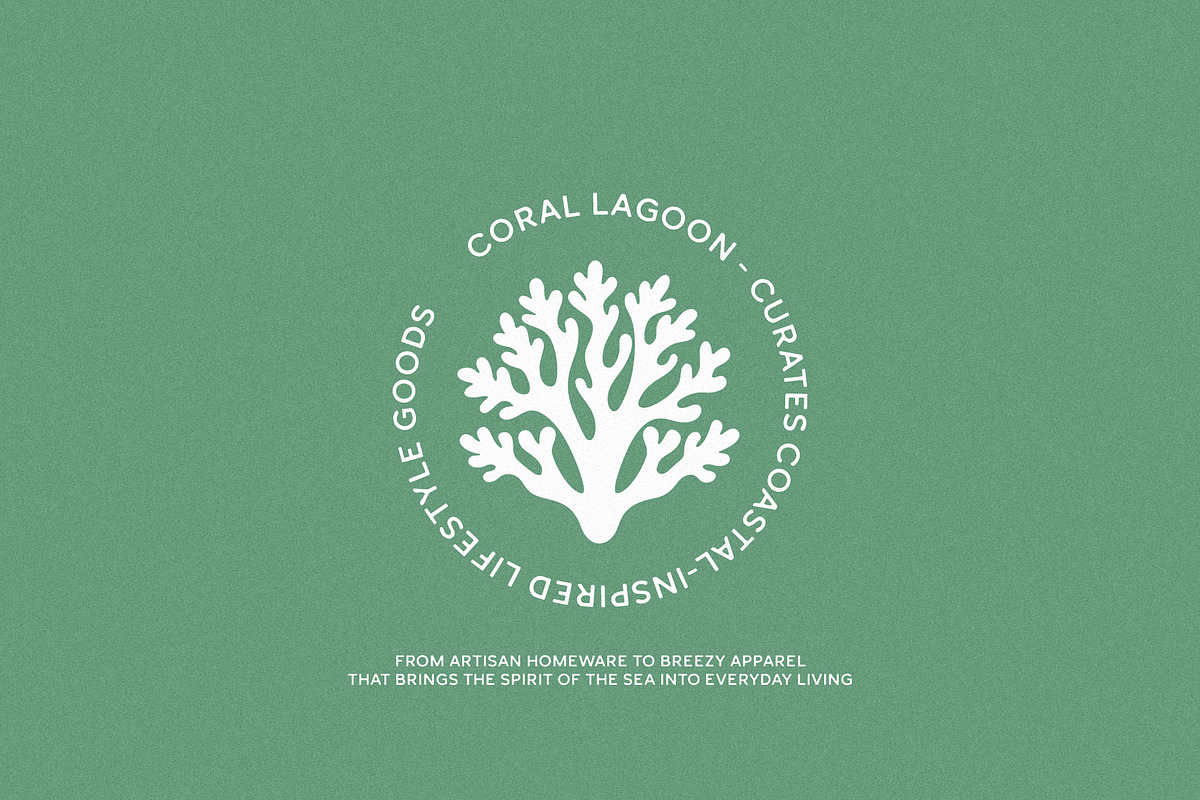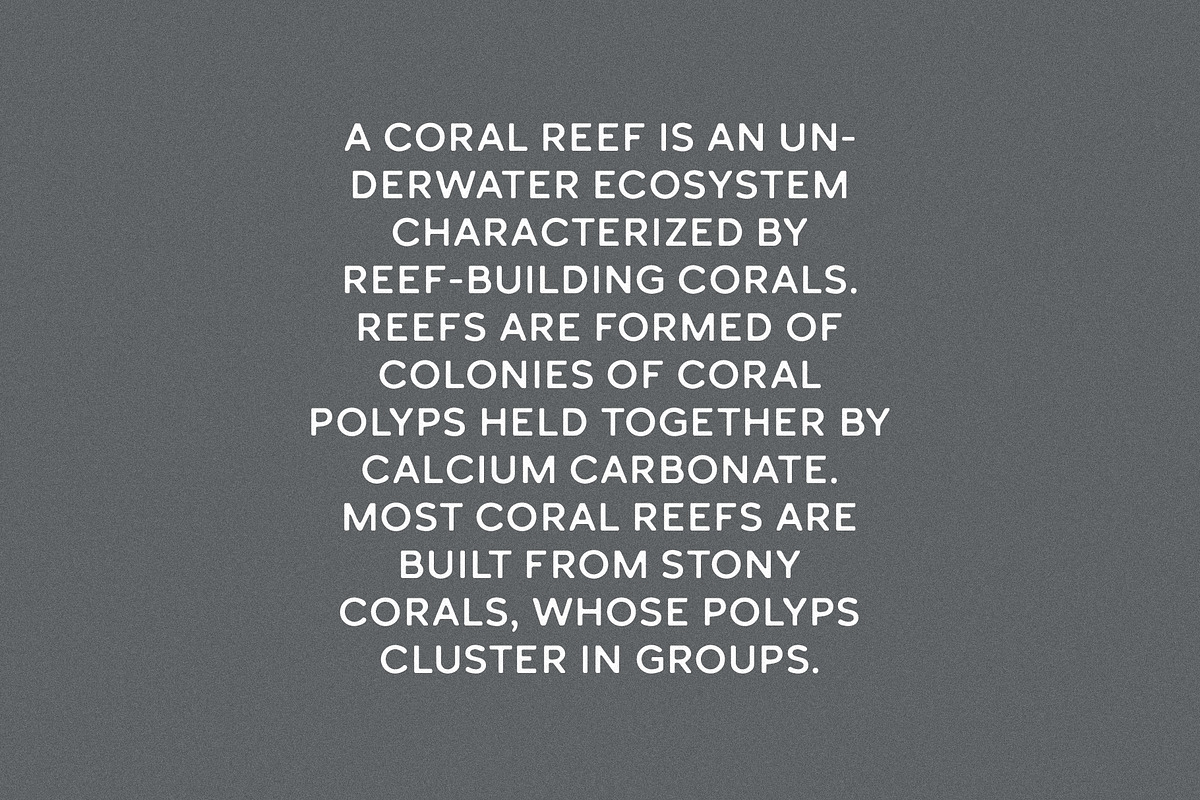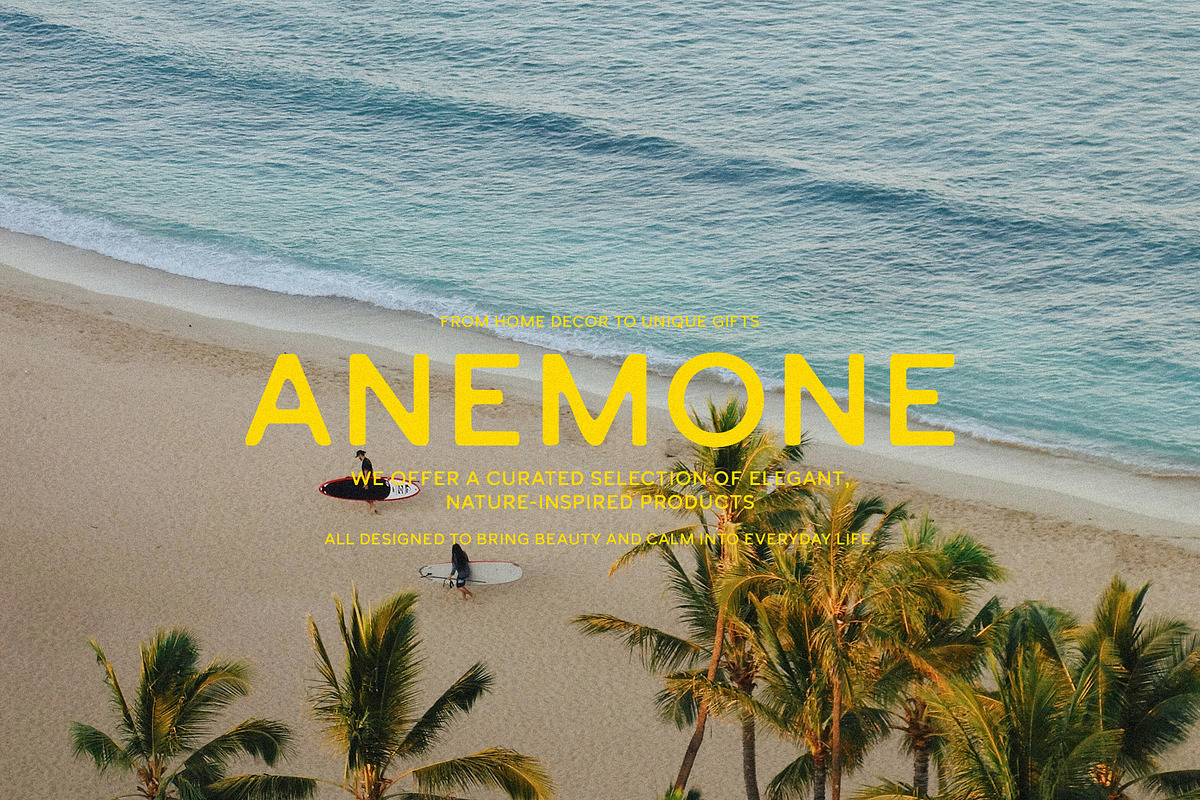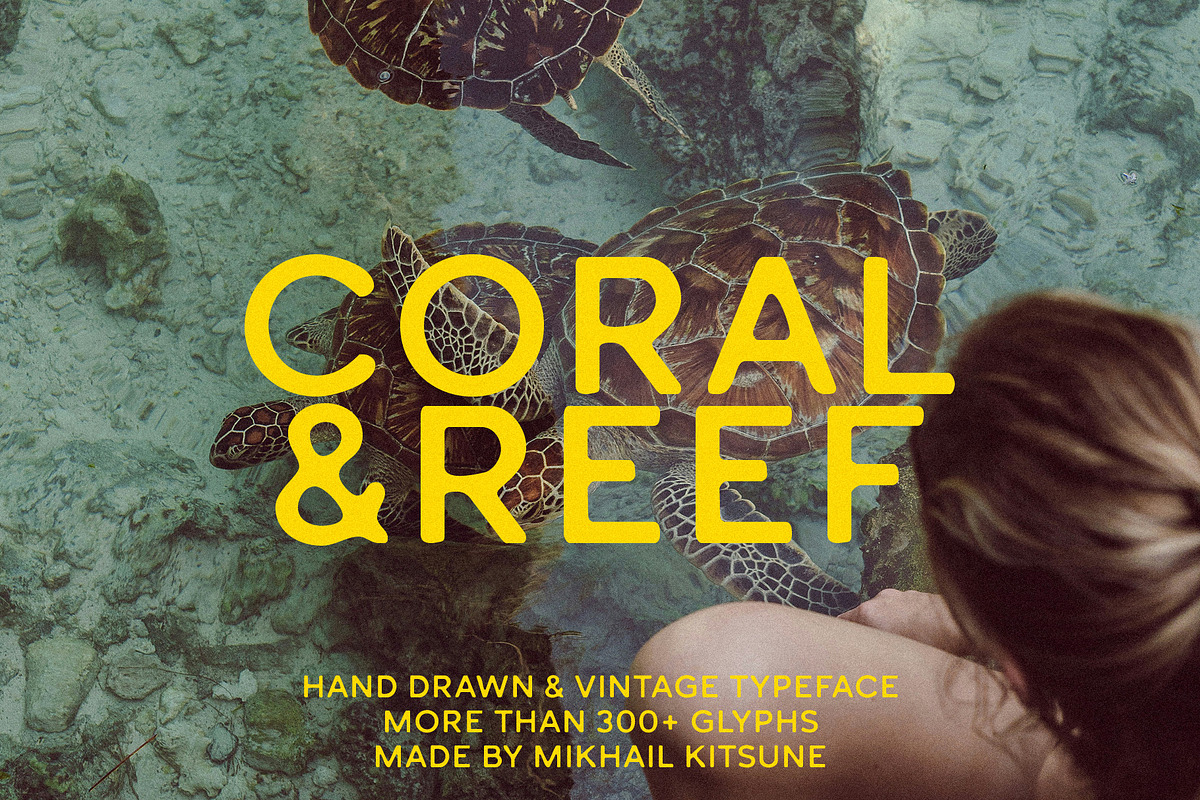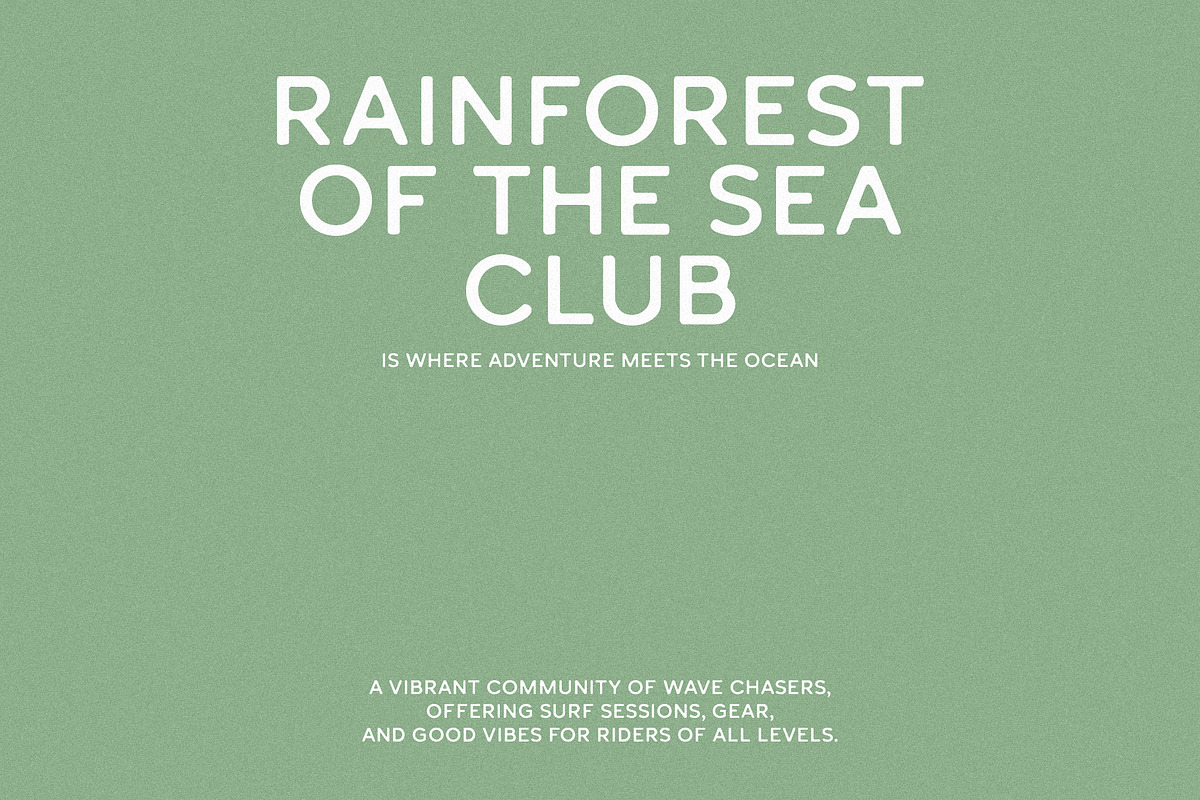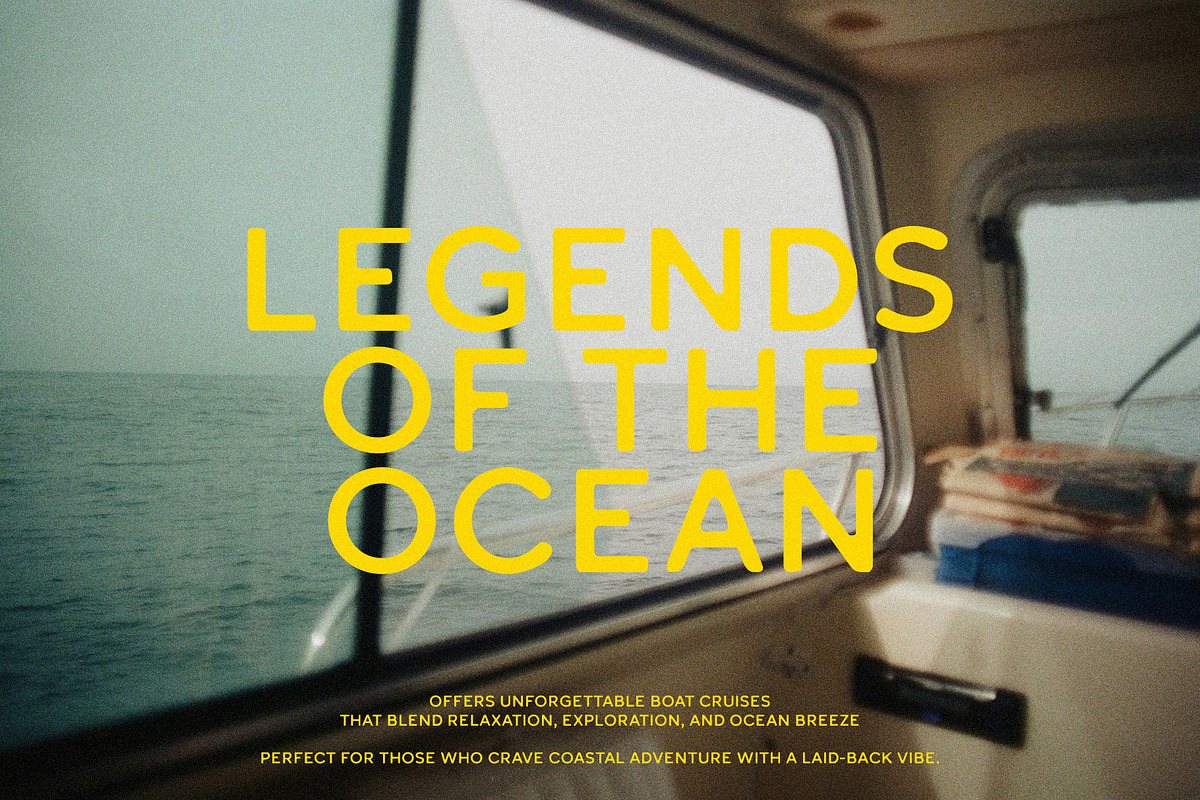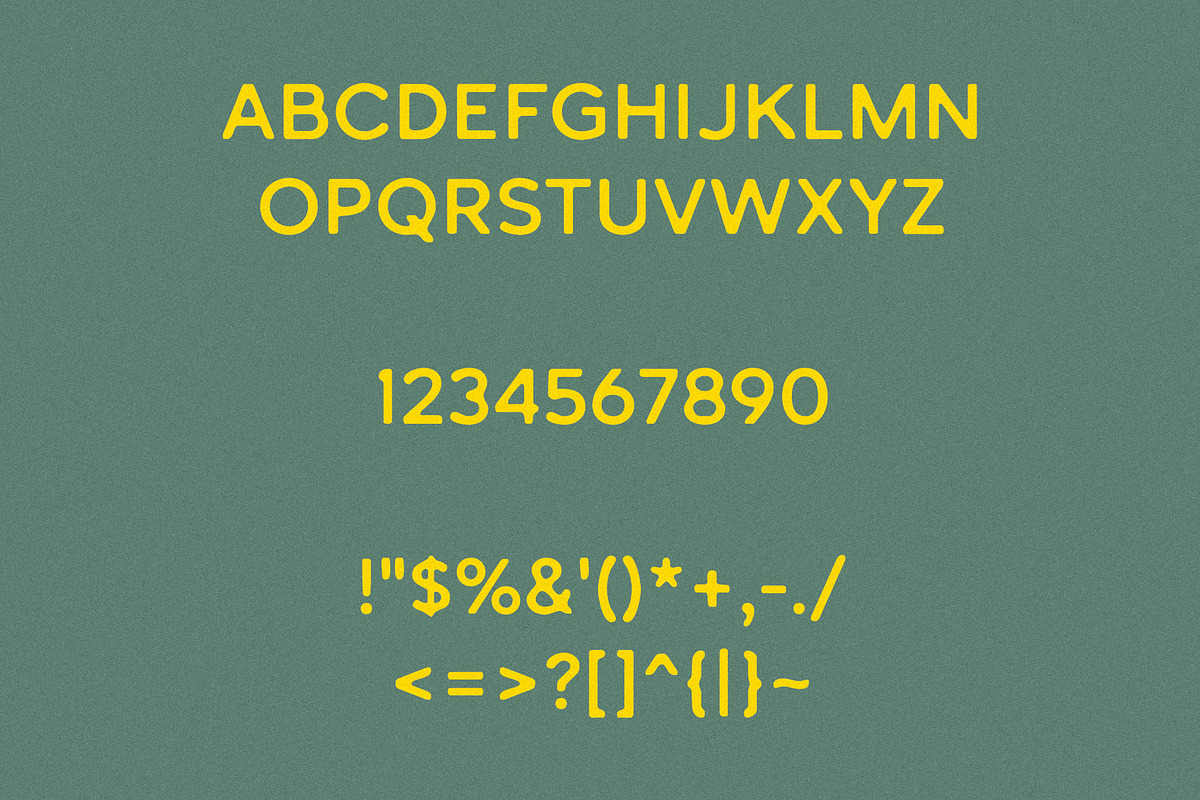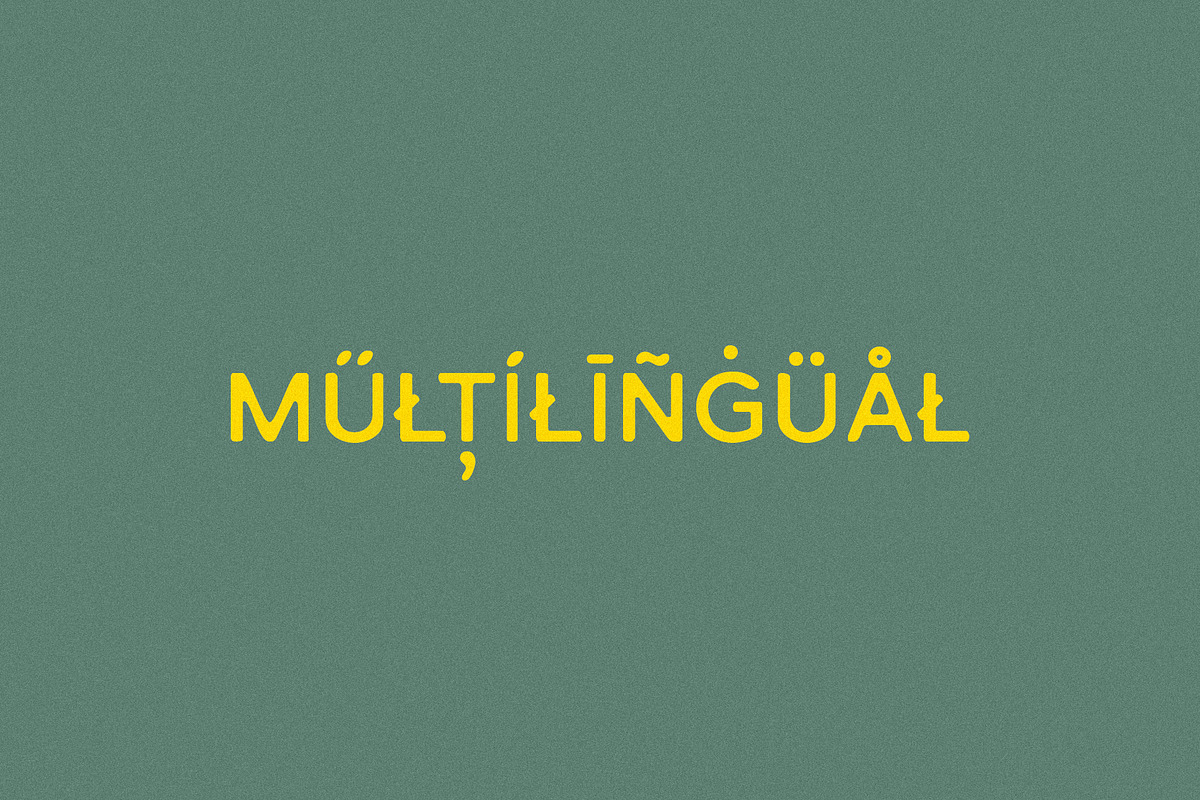
Coral&Reef - Vintage Sans Serif
Coral&Reef is a bold and stylish vintage sans serif font that captures the charm of classic typography with a modern twist. Inspired by retro coastal aesthetics and timeless travel posters, Coral&Reef blends clean lines with nostalgic curves — perfect for branding, packaging, logos, headlines, and editorial design.
With its distinctive character and effortless readability, Coral&Reef is ideal for creatives looking to add a touch of vintage elegance to their work. Whether you're designing a café menu, a surf brand, or a throwback album cover, this font brings personality and warmth to every project.
Coral&Reef includes:
- Letters
- Symbols & Punctuation
- More than 300 glyphs